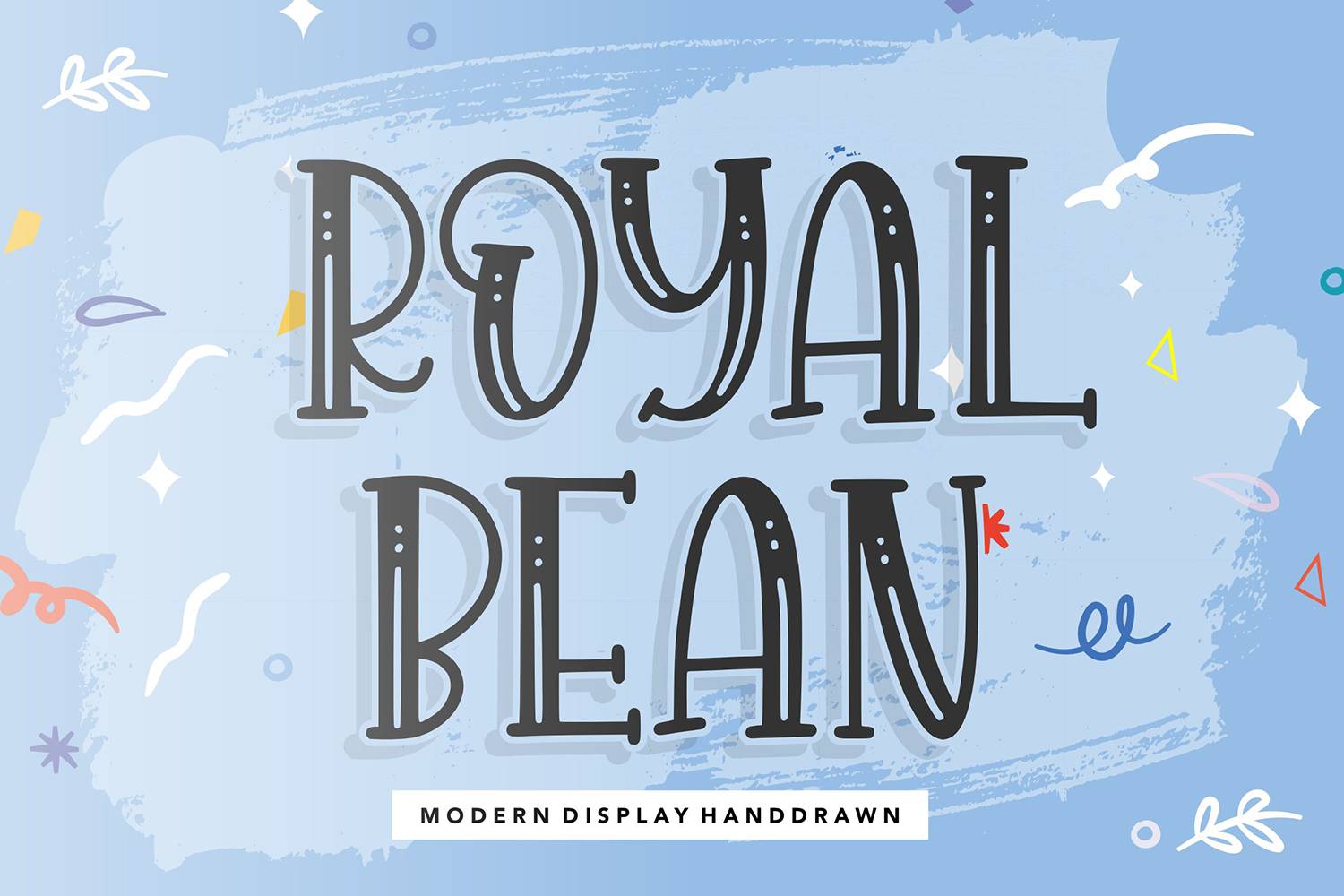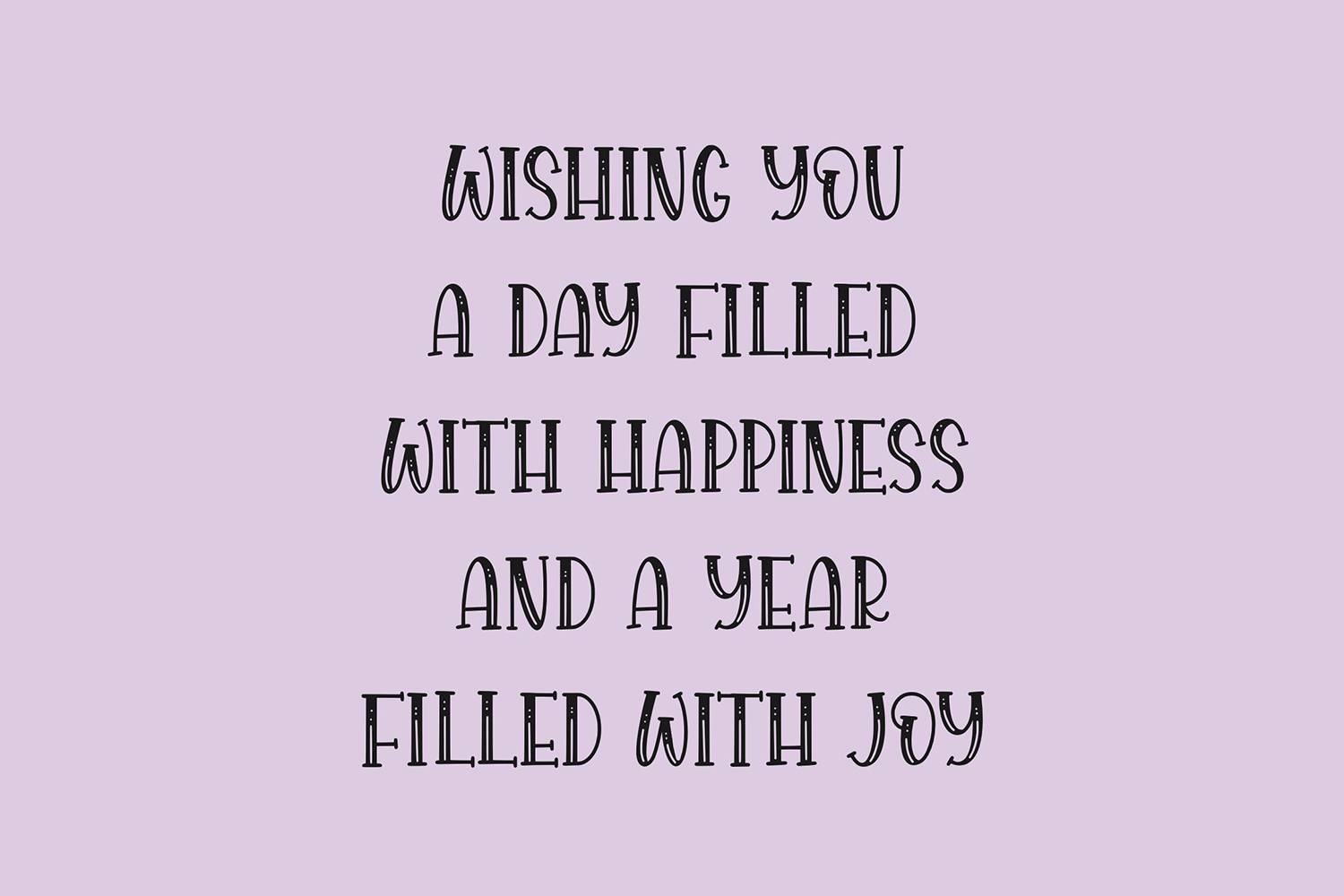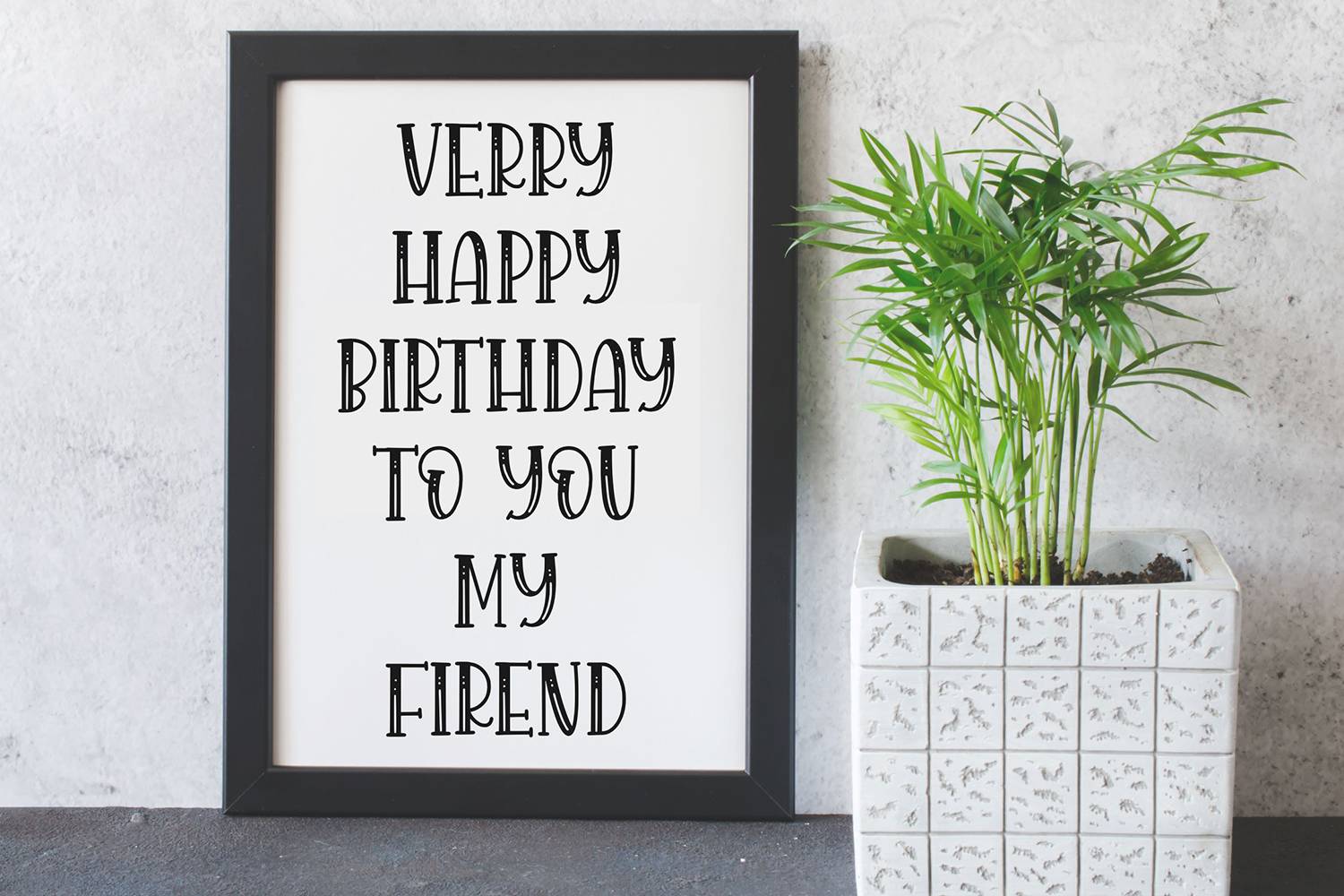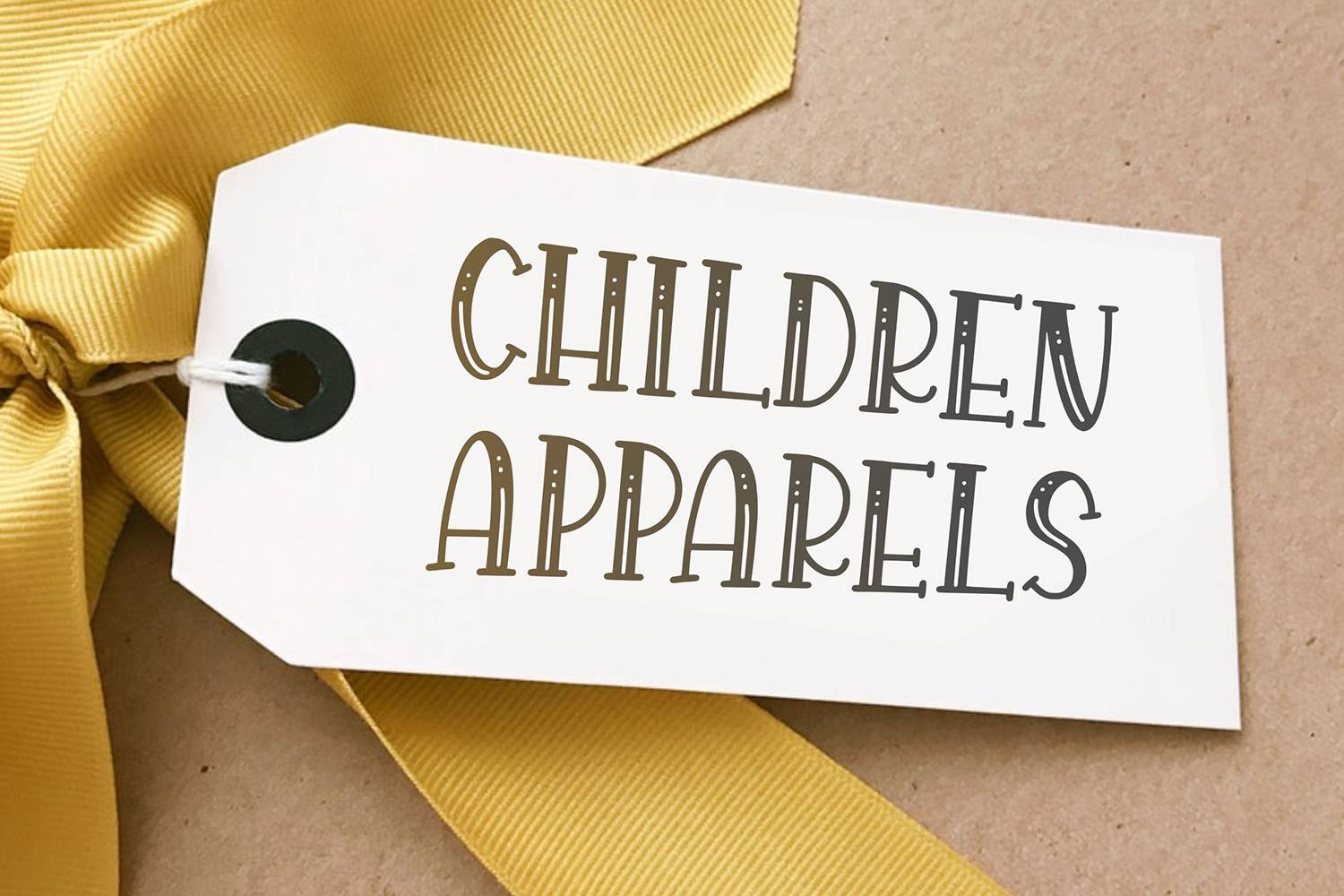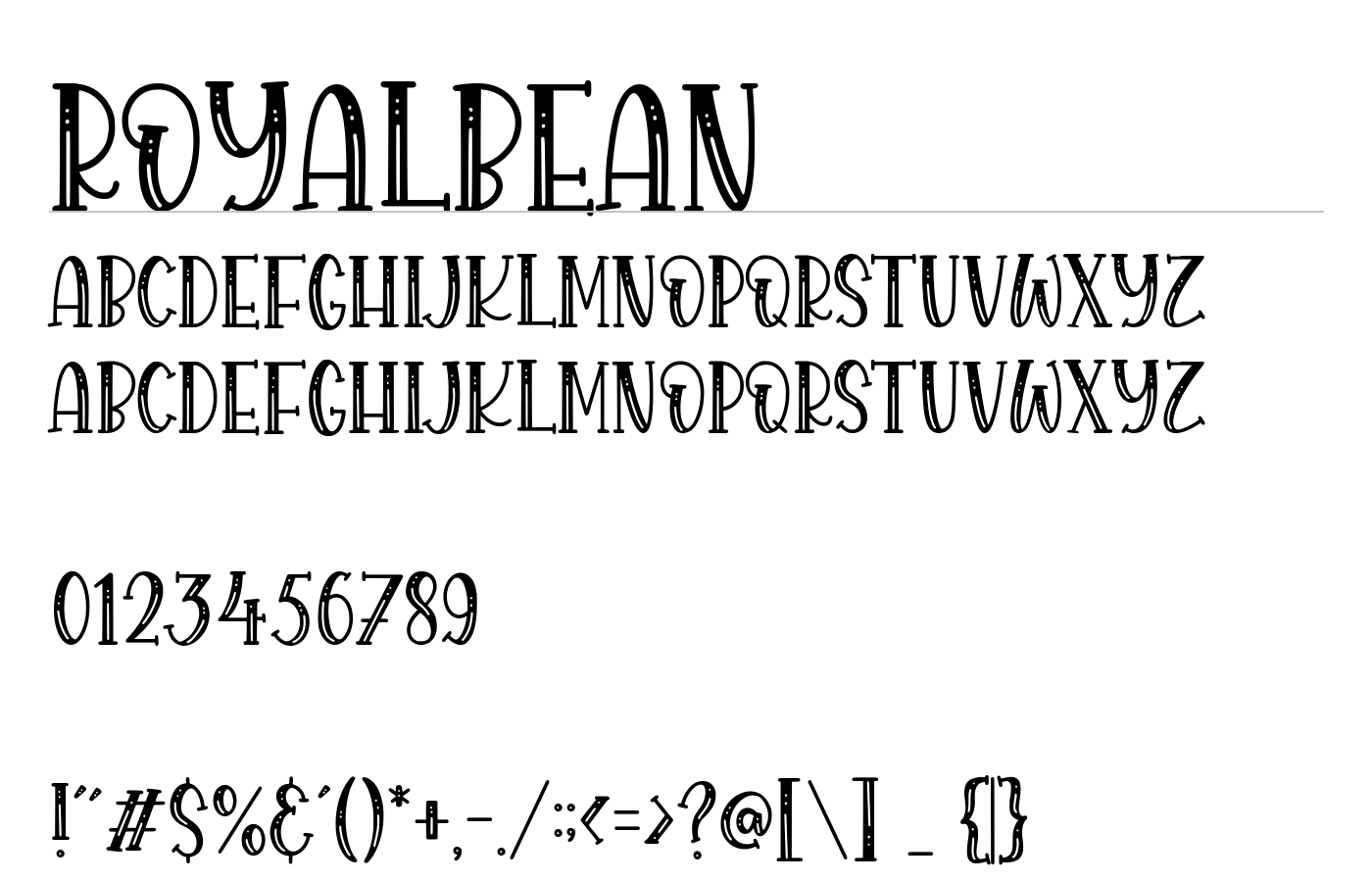
Royalbean is a decorative serif font featuring tall, narrow letterforms with playful, quirky details like dots on strokes and unusual terminal shapes. Its high contrast and condensed style give it a vintage, whimsical charm that works well for creative headlines, logos, and packaging where a distinctive, artistic flair is desired. This font adds personality and an elegant yet fun touch to designs needing a unique and memorable look.
Royalbean Font
About Royalbean Font